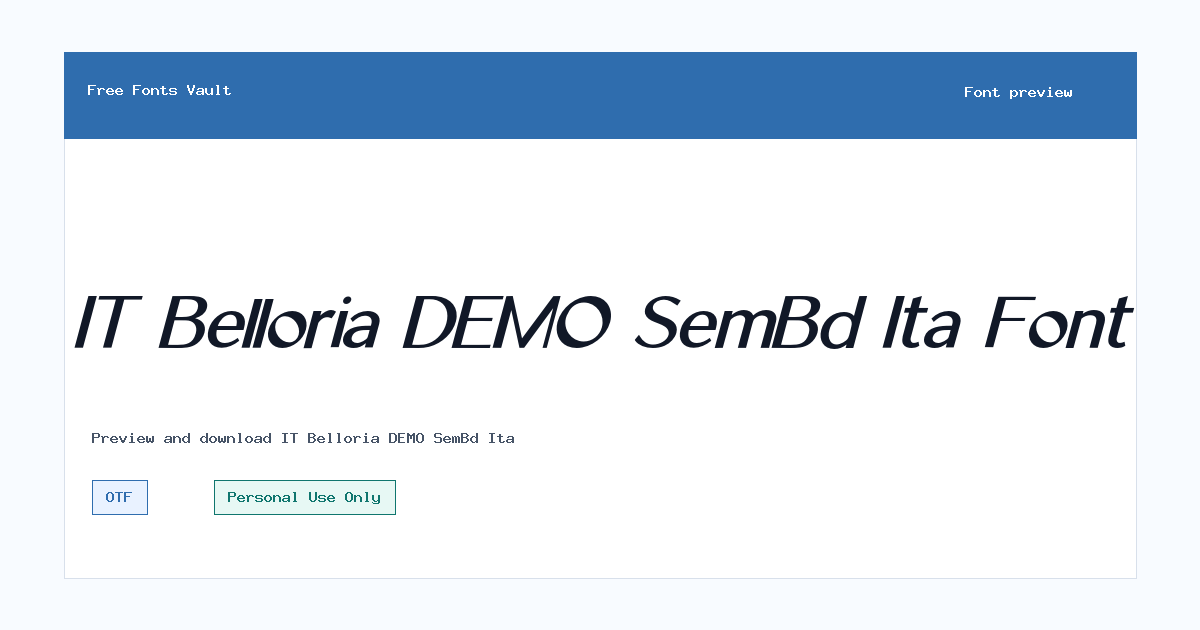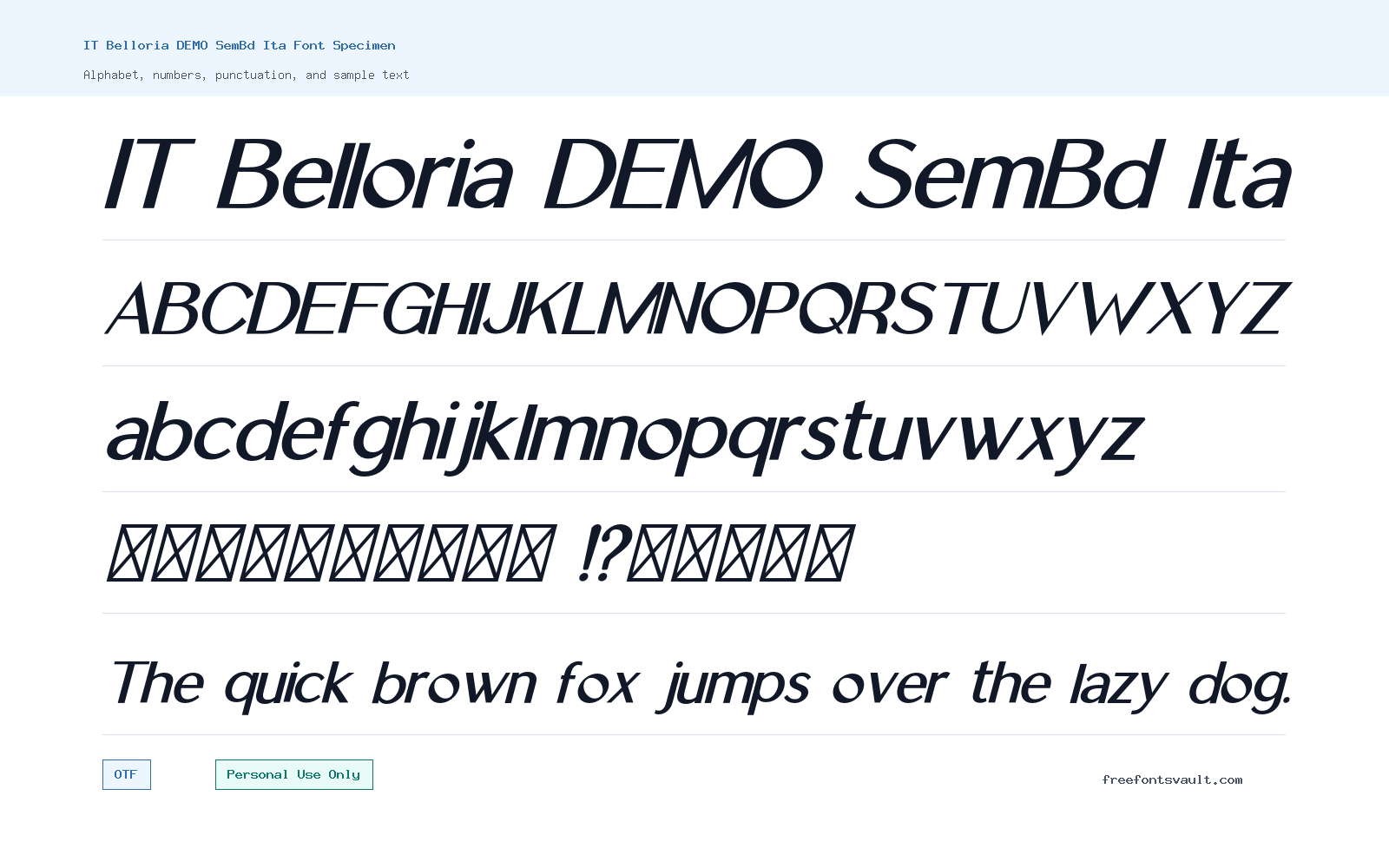
IT Belloria DEMO SemBd Ita
IT Belloria DEMO SemBd Ita font.
IT Belloria DEMO SemBd Ita is a demo OTF font from Indotype Foundry with a personal-use-only license. It is best approached as a test and preview font for exploring display layouts, short headings, and visual style before choosing the right license for a finished project.
About IT Belloria DEMO SemBd Ita
IT Belloria DEMO SemBd Ita appears to be an italic semi-bold demo style in the Belloria family name. Because the file name includes “Sembd Ita,” visitors can reasonably treat it as a slanted, heavier display cut rather than a plain upright text face. That makes it more suitable for short, expressive settings than for long reading. Try it in the preview with brand names, poster titles, packaging words, event headings, social graphics, and a few logo-style letter combinations. Italic forms often bring motion and emphasis, while a semi-bold weight can help short words hold their shape at larger sizes.
For design work, keep the testing practical. Start with the exact words you plan to use, then check spacing, capital letters, punctuation, and numbers. A font can look strong in a sample word but feel different in a real logo, product name, or headline. If you are exploring logo concepts, test both uppercase and title case, because italic shapes can change the rhythm of a wordmark. For posters and web mockups, use IT Belloria DEMO SemBd Ita as a headline or accent style and pair it with a simple, neutral sans serif for body text. Avoid using it for long paragraphs unless your preview confirms that the spacing and slant remain comfortable at smaller sizes.
- Demo semi-bold italic style suited to short display text, emphasis, and visual exploration.
- Useful for checking how slanted semi-bold letterforms behave in titles, nameplates, posters, and logo drafts.
- Works best as an accent face when paired with a cleaner text font for paragraphs and interface copy.
- Logo concept sketches and wordmark experiments where the final usage will be licensed separately if needed.
- Poster titles, event graphics, cover text, and social-media mockups for personal projects.
- Display headings in design studies, mood boards, and typography tests.
- Packaging-style mockups, label concepts, and short brand-name trials.
- Testing italic semi-bold rhythm before choosing a full family or commercial license.
What is this font best used for?
It is best tested in short display settings such as headings, poster titles, logo drafts, social graphics, and packaging-style mockups.
Is it a good font for body text?
It is better suited to short text and display use. For paragraphs, pair it with a simpler text font and use IT Belloria DEMO SemBd Ita only for emphasis or headings.